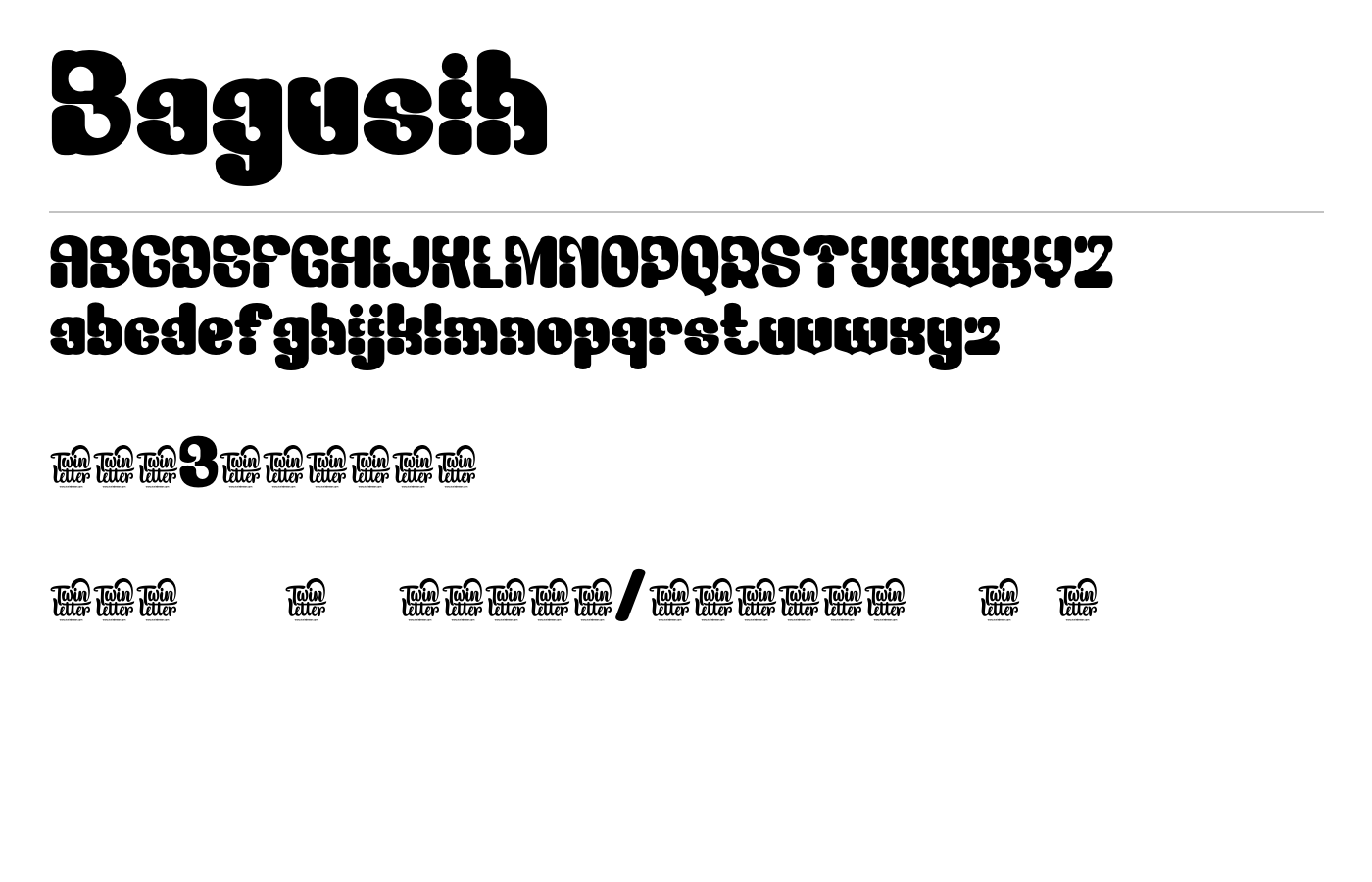
Bagusih is a bold, playful display font characterized by its thick, rounded shapes and unique, multi-part letterforms that create a fun, almost bubbly feel. With its strong presence and distinctive style, it works best for eye-catching headlines, branding, and creative projects where a lively, unconventional look is desired. This font adds a quirky, modern touch to designs, perfect for posters, logos, or packaging that aims to stand out with personality.
Bagusih Font
About Bagusih Font
| Font family | Bagusih Font |
| Designer | Ojak |